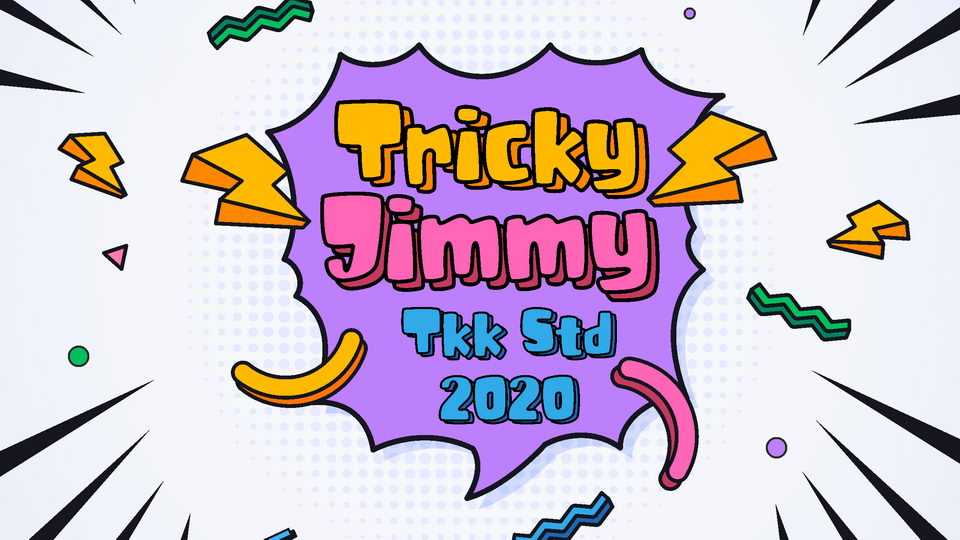
Download Tricky Jimmy font, a display typeface that has a simple fun shape, emphasizing the joy and happy feeling in every word it’s written. Tricky Jimmy suits perfectly for online games, poster, movie title, fast food menu, magazine, youtube covers and more.